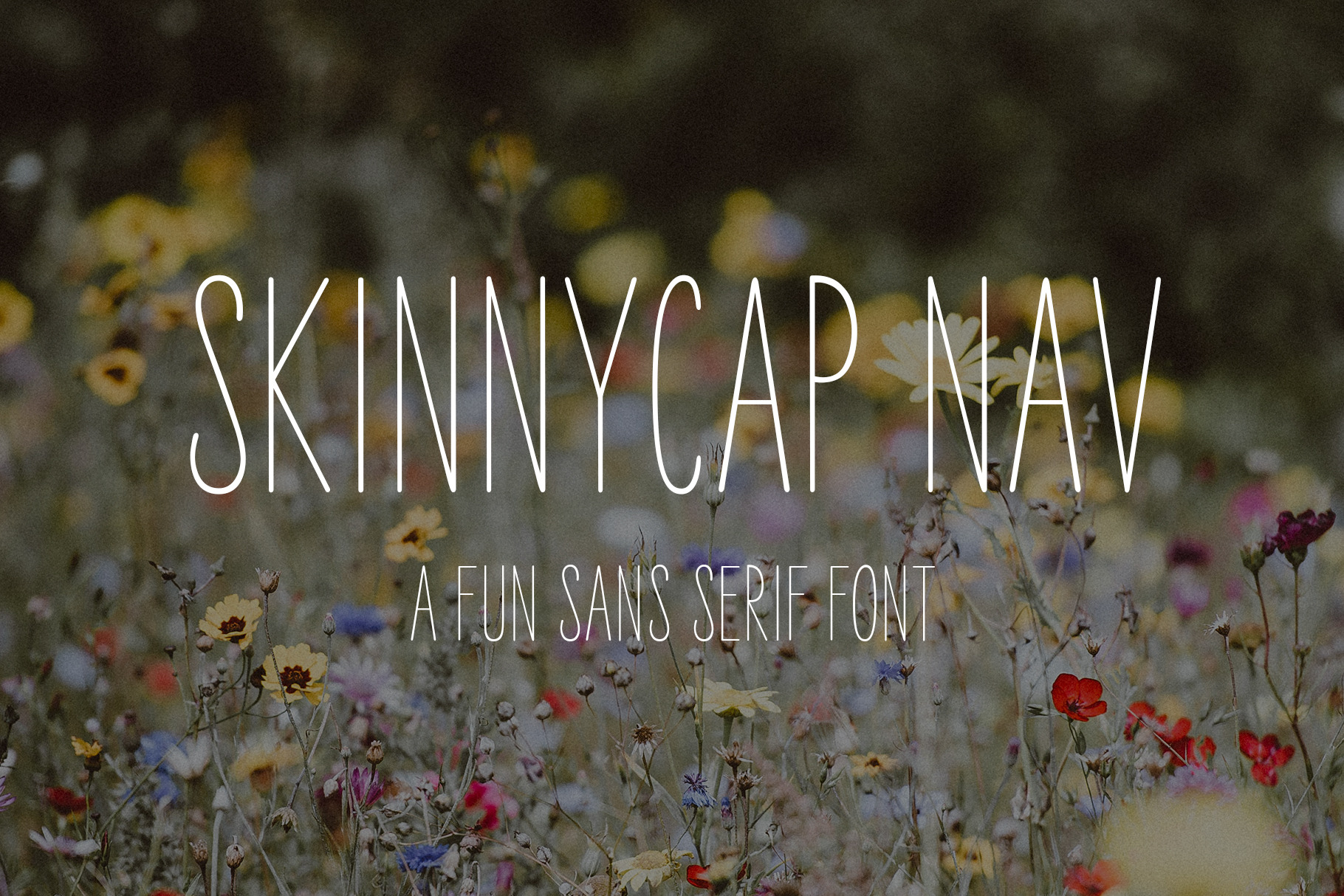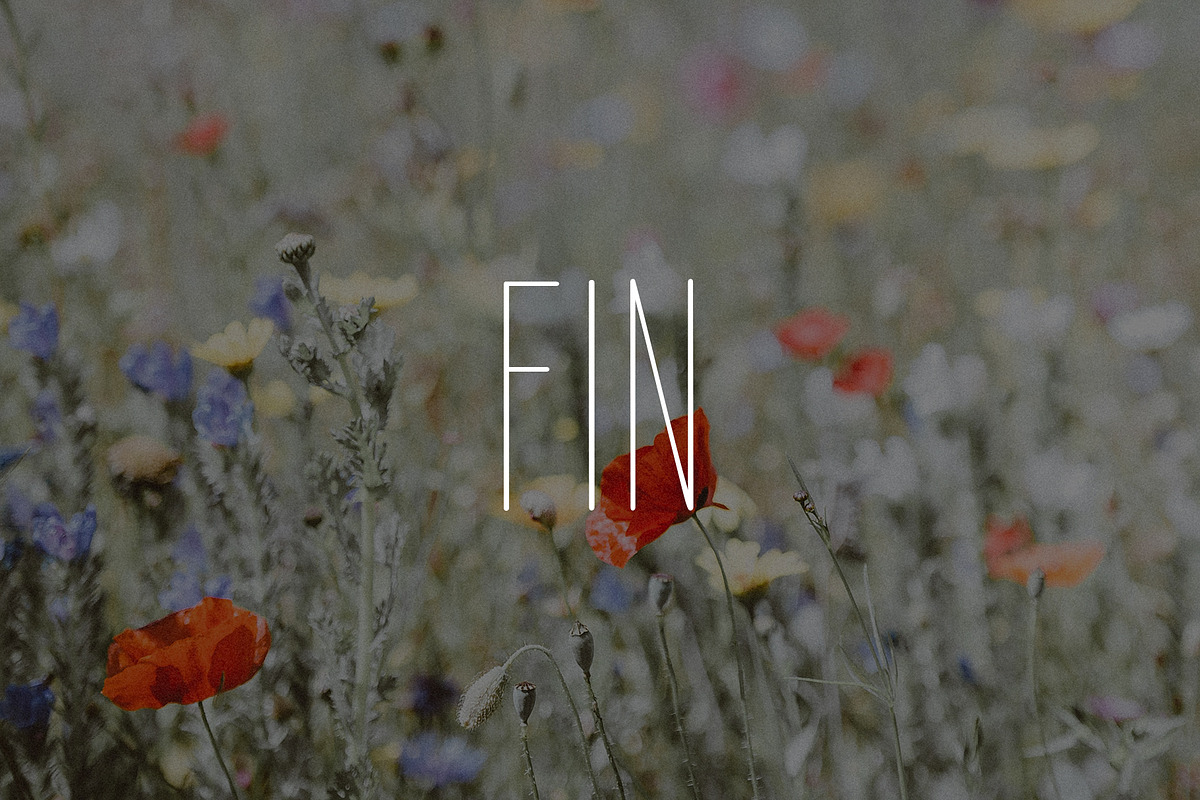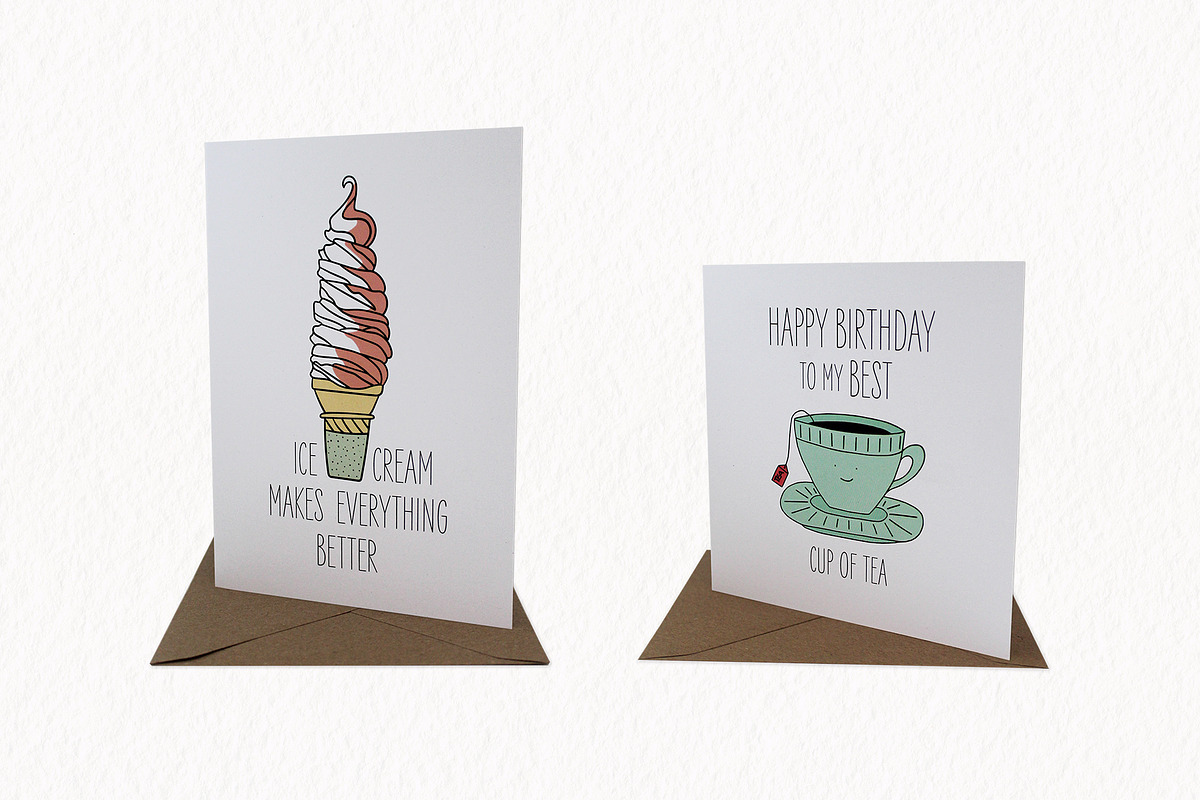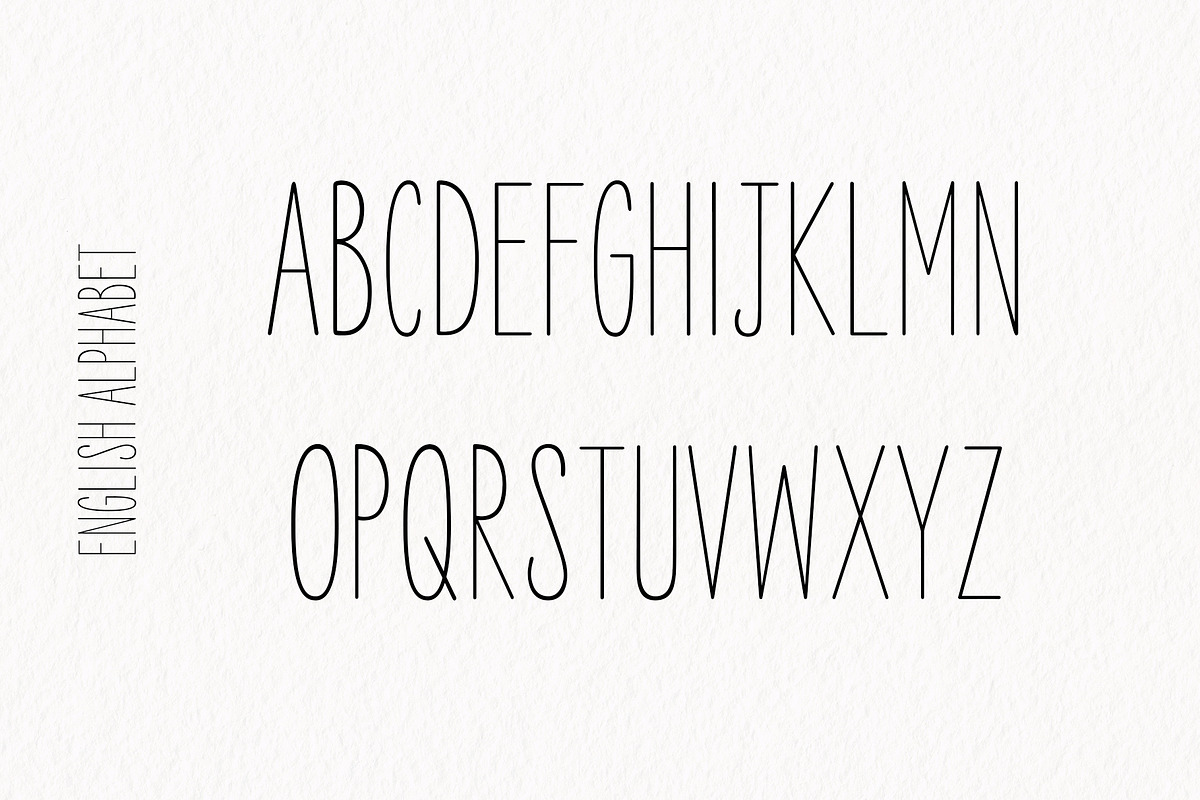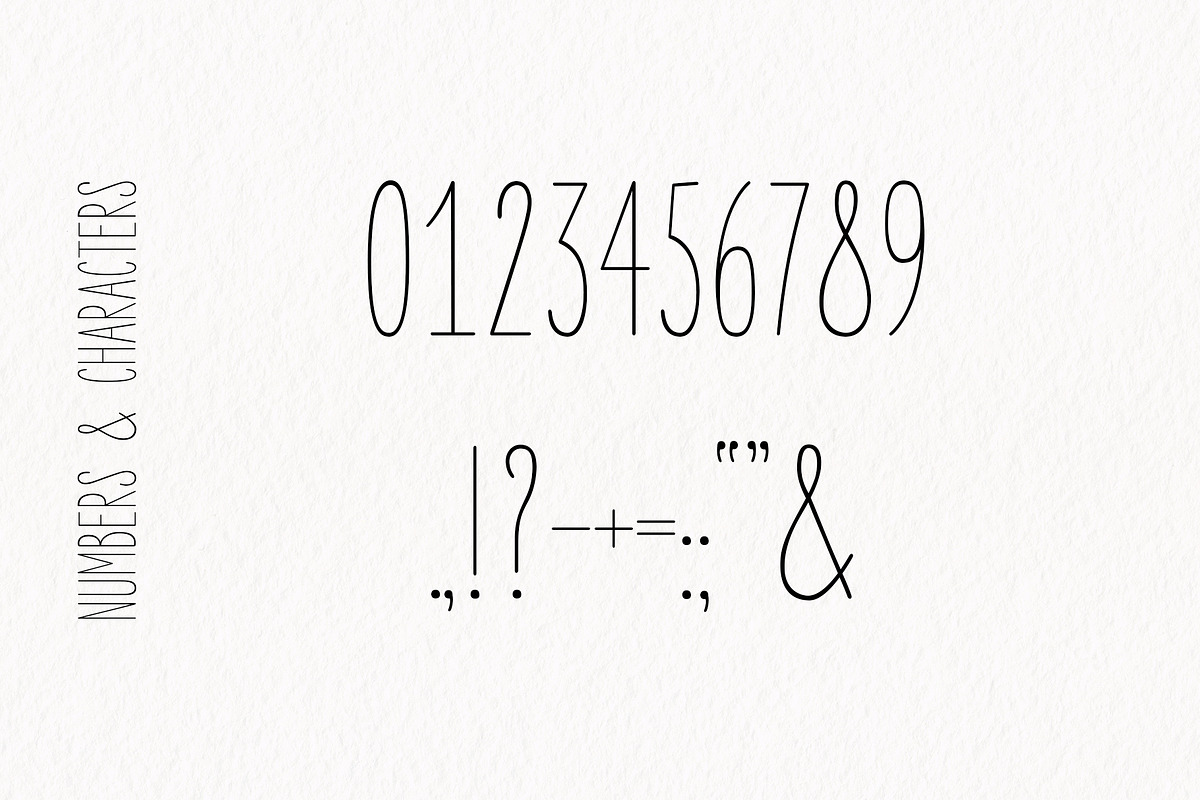
SkinnyCap Nav | Sans Serif Font
Introducing SkinnyCap Nav; a fun, modern, indie sans serif font. This font stands strongly on its own as a heading, display or editorial font alongside imagery and illustrations. Also pairs well with bold sans serifs and scripts.
SkinnyCap Nav - A sans serif uppercase font that contains uppercase characters, numbers 0-9 and a range of punctuation and symbols. If you have any trouble finding certain characters you can access them via the glyphs panel.